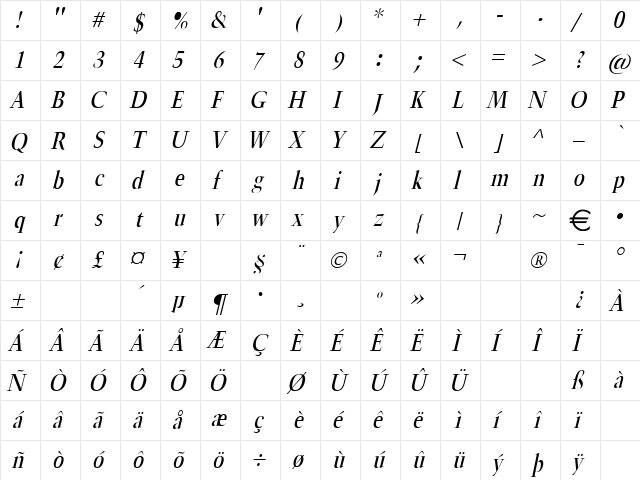
Horn Italic
Design Context for Horn Typeface
Horn offers clean, dependable letterforms without strong stylistic allegiance, making it a practical choice for designers who need flexibility. The dynamic lean of this cut emphasises speed and emphasis in any layout.
Pro Tip: Try Horn for annotation and caption copy alongside an upright companion — the contrast in angle creates a dynamic but ordered typographic system.